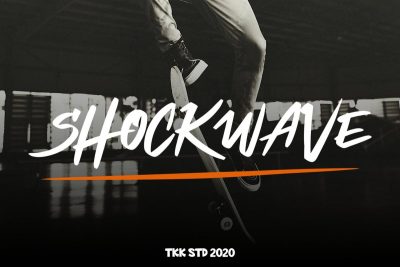
Shockwave graffiti font
Shockwave
The Shockwave graffiti font is a bold and dynamic script that instantly grabs attention. Its sharp edges and fluid strokes capture the rebellious nature of urban street art. Inspired by the quick, instinctive movements of graffiti artists, this font exudes a strong sense of energy. Moreover, the slightly slanted and elongated characters further enhance the feeling of motion, making it ideal for designs that need a vibrant touch.
Additionally, the high-contrast strokes give the font a striking appearance. Slight imperfections in each letter add to its authentic, hand-drawn style. As a result, the rough edges provide a raw, urban feel while still ensuring readability. This balance between creativity and legibility makes the font highly versatile. Furthermore, the varying thickness of the letters introduces texture and depth, which enhances designs like posters, logos, and merchandise.
With its urban-inspired look, the Shockwave graffiti font brings a street art flair to any project. Not only does it add a sense of excitement and originality, but it also gives designers the flexibility to create bold and memorable work.
Shockwave graffiti font Ideal for:
The Shockwave graffiti font is ideal for creatives looking to add an urban, edgy feel to their designs. In particular, streetwear brands will find it especially fitting, as its raw and energetic style aligns well with youth culture. Moreover, its bold design makes it a great choice for extreme sports brands, such as skateboarding or BMX, where it appeals to a rebellious and adventurous audience.
For music labels, especially those in genres like hip-hop, punk, or alternative rock, this font works perfectly to enhance their branding. The Shockwave graffiti font conveys a sense of defiance, creativity, and movement. Therefore, itโ€™s ideal for album covers, music festival posters, and other promotional materials. Its energetic flow helps communicate intensity and excitement.
In addition, designers working on event materials will benefit from using this font. Whether itโ€™s for music festivals, skateboarding competitions, or graffiti art shows, the fontโ€™s urban aesthetic complements such events. Furthermore, Shockwave is great for merchandise, particularly for clothing lines aimed at younger audiences who are drawn to street culture and self-expression.
For social media content creators, this font is also a powerful tool. Its bold and distinctive style helps posts and stories stand out. Therefore, it works well for Instagram graphics, promotional visuals, and branding that targets a youth market. Whether used in personal projects or commercial campaigns, the Shockwave graffiti font captures attention and communicates energy, creativity, and boldness.
Shockwave – Graffiti Font Taken from the urban spirit and rebellious teenager signature font. Carefree and always stay on the edge of their adrenaline.